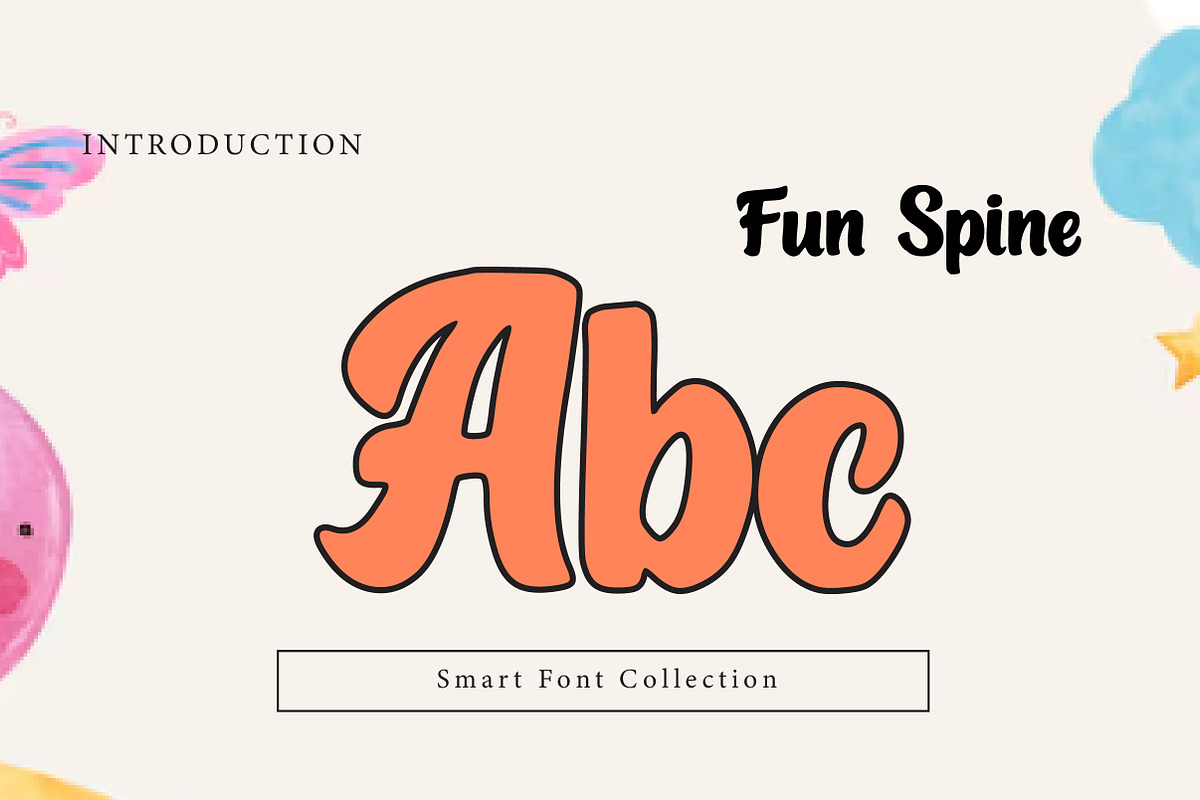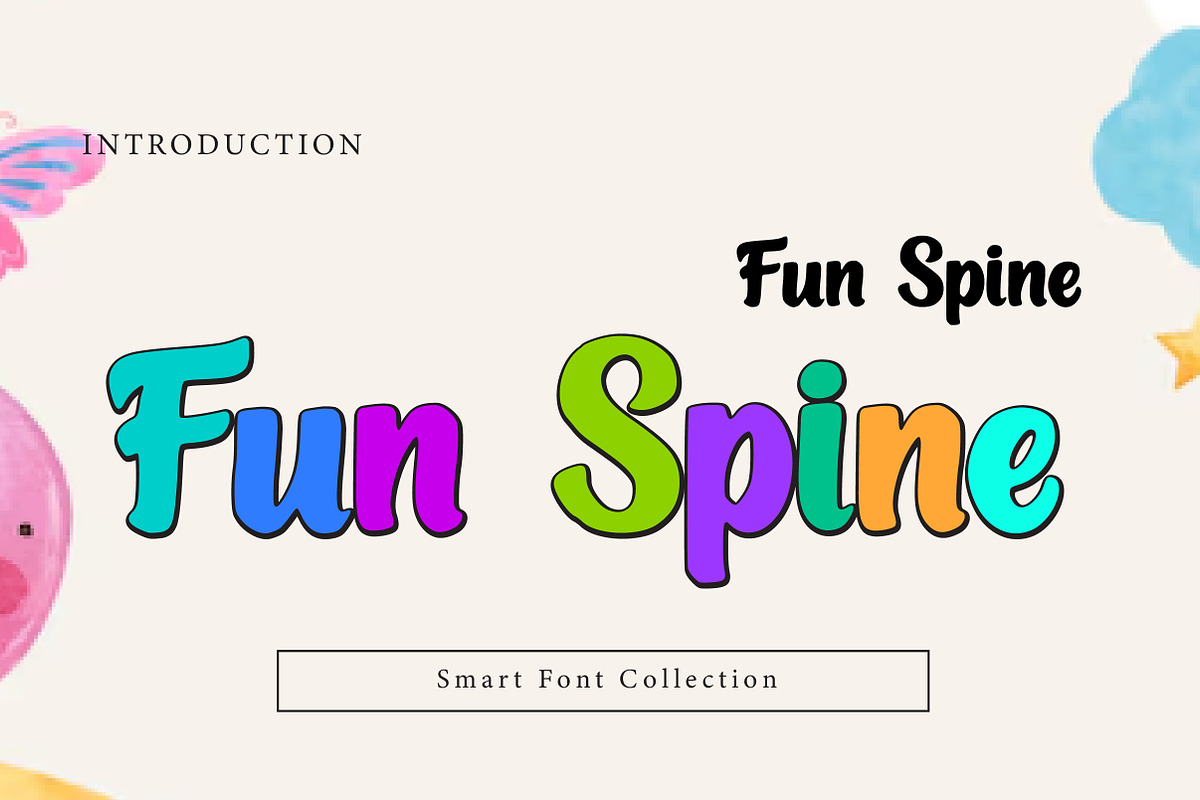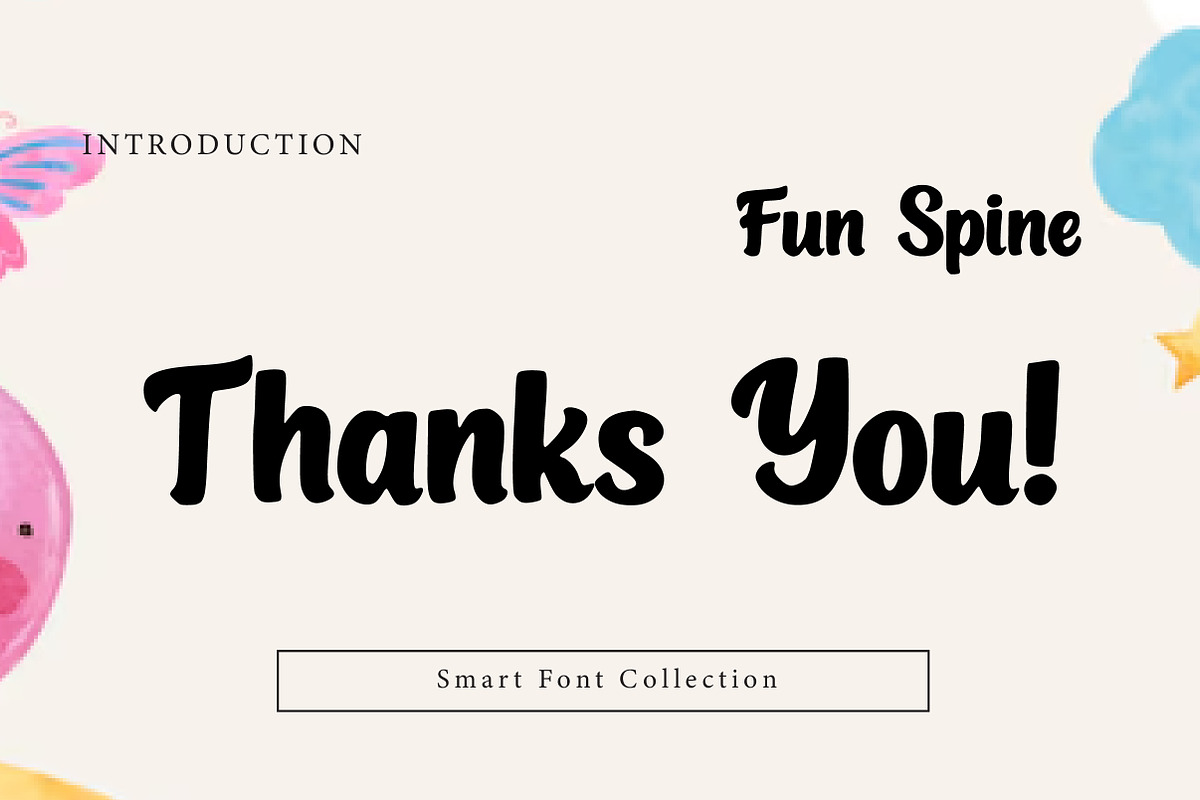
Fun Spine
Fun Spine is a bold, bouncy retro display font with soft curves, chunky strokes, and a friendly hand-drawn vibe. Its rounded shapes and playful rhythm make it perfect for kids branding, posters, packaging, stickers, headlines, social media graphics, and fun logo designs. Fun Spine brings a cheerful, energetic personality that stands out instantly.